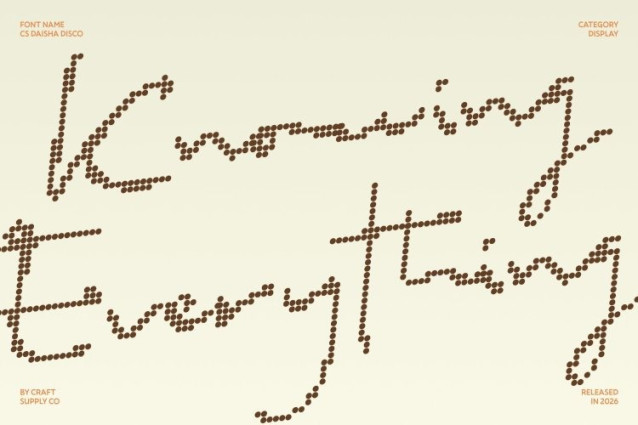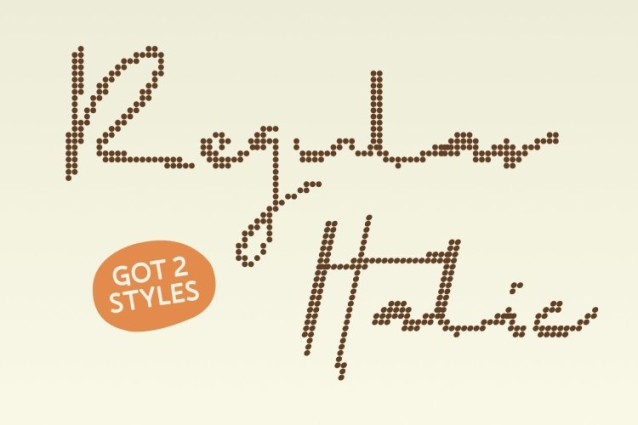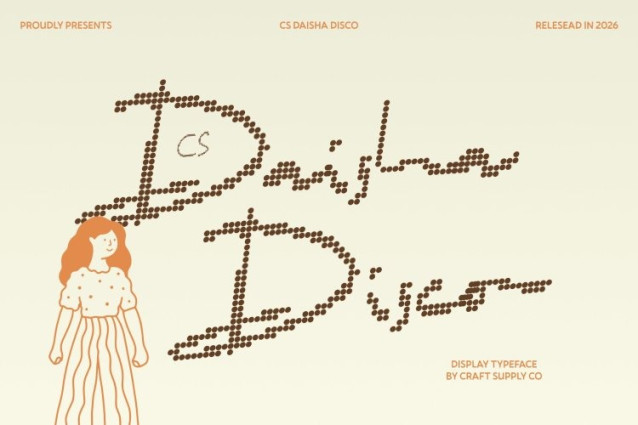
CS Daisha Disco Font
CS Daisha Disco Font – This transforms its gentle handwritten script into a radiant dotted style inspired by the shimmering lights of a dance floor. The soft, flowing strokes retain their natural charm while glowing with delicate dot details, giving every letter a lively sparkle that feels warm, cheerful, and expressive.
Organic Strokes with Luminous Detail
The natural pen-like curves and fluid connections remain smooth and balanced, now enhanced with disco-inspired dots that add rhythm and movement. This glowing texture highlights the expressive flow of the script, turning simple handwriting into a playful visual experience.
Friendly Style with Festive Energy
This font preserves the approachable warmth of the original handwritten style while introducing a joyful party atmosphere. The combination of soft curves and sparkling dots creates typography that feels both heartfelt and celebratory perfect for designs that want personality and brightness.
Perfect for Personal and Joyful Designs
Ideal for personal branding, inspirational quotes, casual invitations, packaging, and social media graphics, this font brings charm and liveliness to every layout. It works especially well for lifestyle brands and creative projects that want to feel authentic, friendly, and visually engaging.